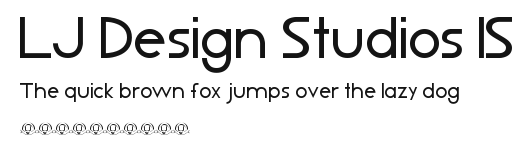
• Font Name: LJ Design Studios IS
• Designer: LJ-Design Studios Group
• Manufacturer: LJ-Design Studios
• Description: Oficial Font of LJ-Design Studios
About LJ Design Studios IS.ttf
LJ Design Studios IS.ttf is a modern, elegant sans-serif font designed for ultimate readability and visual harmony. Perfect for branding, headlines, web design, and print materials.